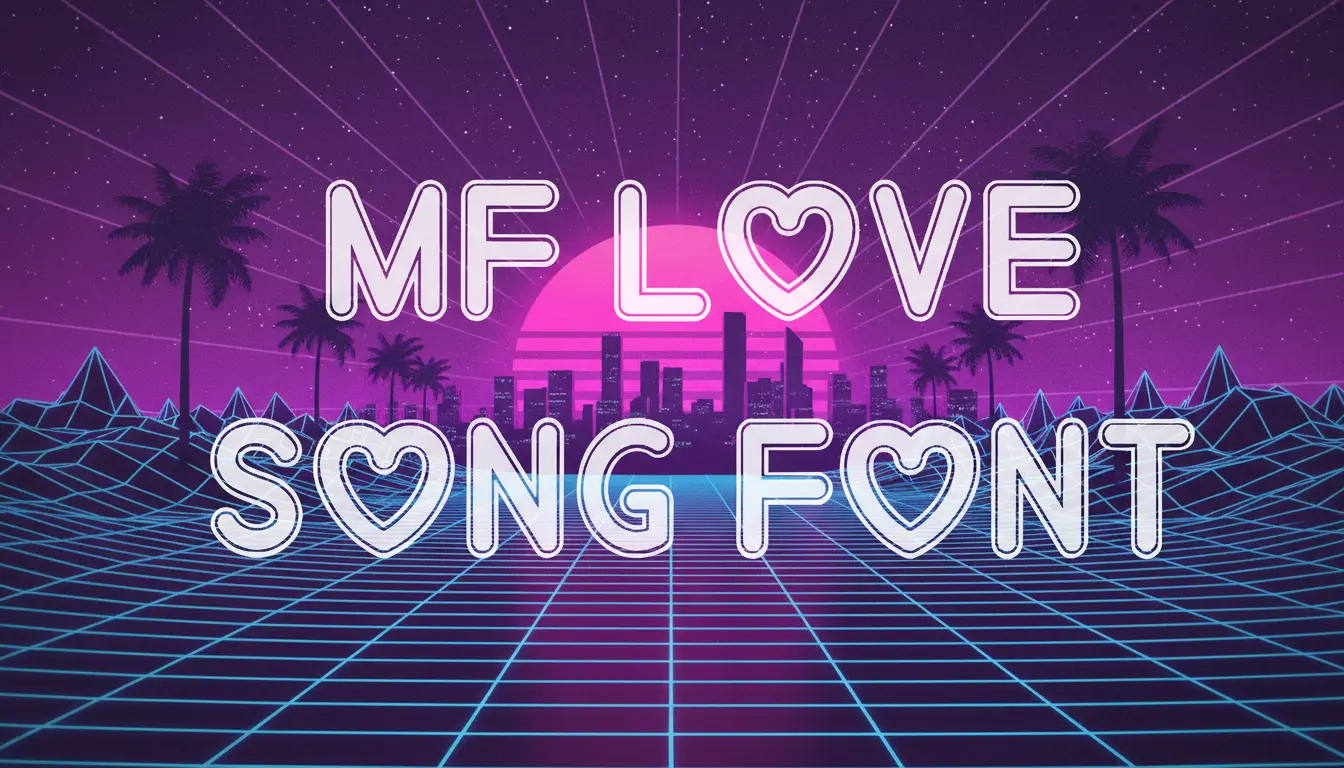
Mf Love Song Font
# Heart shaped font
Mf Love Song
Mf Love Song is a holiday font designed by Misti's Fonts (Misti Hammers). Cheerful and seasonal, it adds a party mood to cards, banners and invites. You can download it for free and test it with your own words in the preview above.
You get every letter from A to Z in both cases and all the numbers from 0 to 9, which means Mf Love Song can handle full sentences, dates and prices. Everyday marks like &, !, ? and @ are there too. Thanks to its accented letters, it also works for Spanish, French, German, Portuguese and Italian, not just English.
Think of Mf Love Song for seasonal cards, sale banners and party invites. Keep the wording short, like a greeting or a sale headline, and let the font set the mood.
Yes. Mf Love Song includes the accented letters needed for Spanish, French, German, Portuguese and Italian, so it works for more than just English.
A simple serif or sans serif works well for the smaller details.